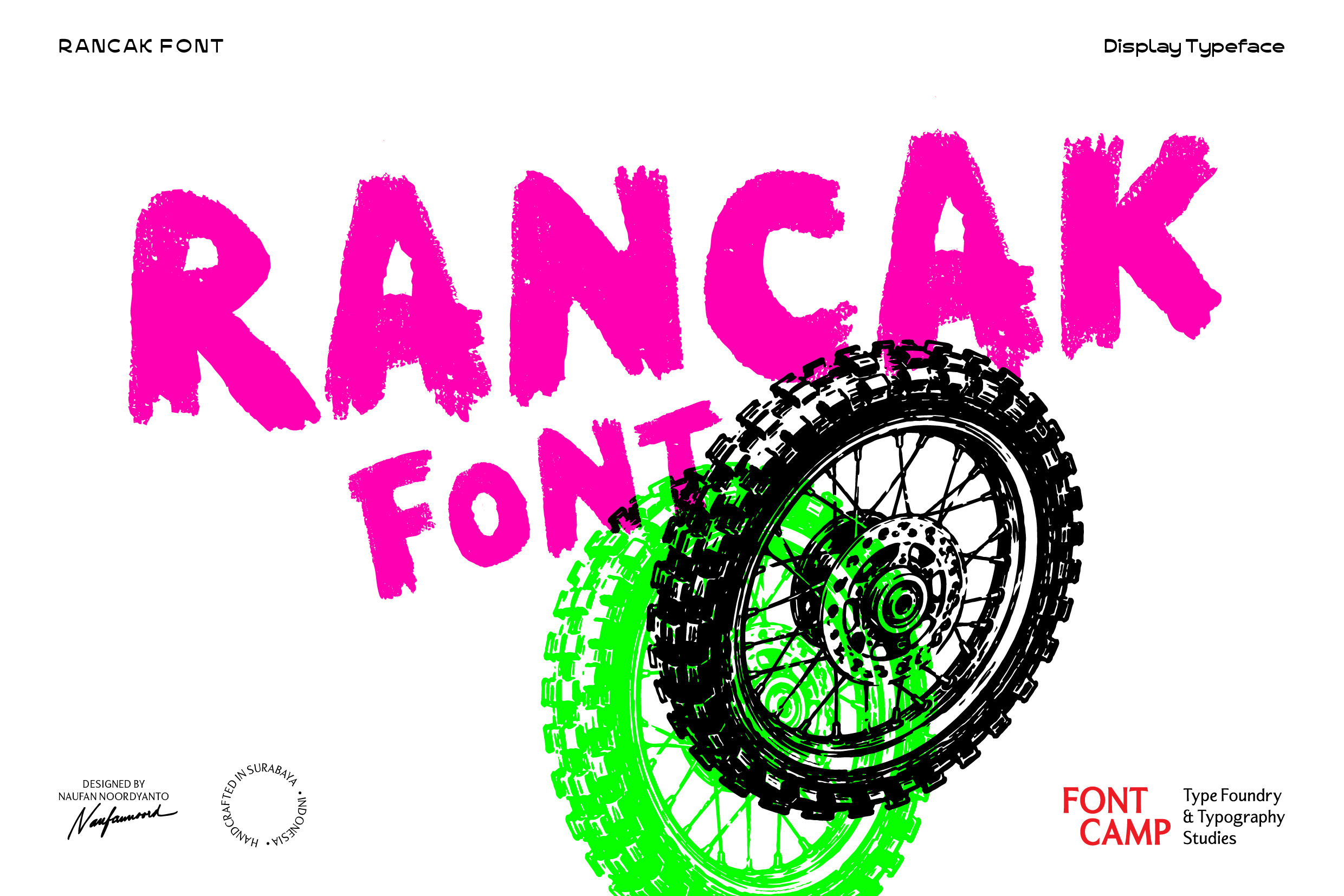
Rancak Font
Introducing the "RANCAK" Font.
DESCRIPTION
Rancak is a raw, expressive display typeface defined by its bold, dynamic brushstrokes and untamed artistic energy. Its most prominent feature is a visually irregular stroke and distressed, rough texture, giving the text a feeling of unpolished attitude and spontaneous movement, mimicking hand-drawn organic art. The letterforms are naturally strong and compact with a heavy reliance on uppercase-style structures, allowing for tight, impactful text layouts that maintain a commanding presence.
An organic touch shines through its variable stroke weights and subtle, hand-drawn imperfections at the edges of each letter. The unique curves and confident horizontal strokes create a personal, striking, and spirited aesthetic. This lively and energetic structure makes Rancak an ideal choice for modern branding projects, eye-catching poster headlines, heavy-hitting streetwear merchandise, distinct logotypes, music festival branding, or any creative design that embraces a raw, free-spirited vibe.
TECHNICAL SPECIFICATIONS & CAPABILITIES
Expansive character library: engineered with 334 meticulously crafted glyphs, providing full coverage for high-impact displays, symbols, and comprehensive punctuation across a single definitive style (Regular).
Commanding All-Caps design: specially structured as an All-Caps typeface with different letterforms between uppercase and lowercase keys, optimized for casual headlines, bold logotypes, and tactical branding.
Global linguistic support: built with an extended character set to ensure seamless compatibility with multiple languages, supporting diverse diacritics and special ligatures.